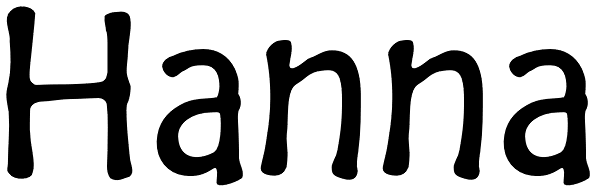
Hanna
Hanna has its roots in the Plato and Cilantro fonts published earlier by Wilton Foundry. It is an informal roman and very legible at any size - a rare combination for many applications. Hanna was specifically designed to generate additional income...